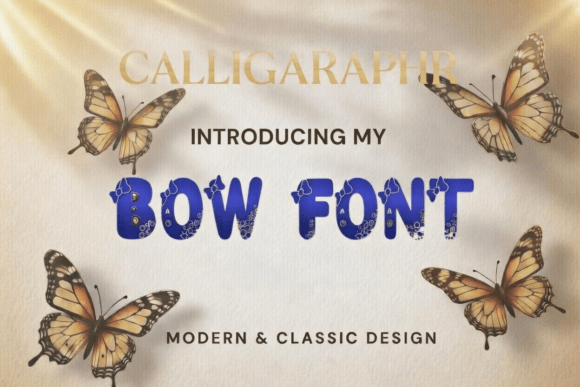
Adding a Touch of Whimsy to Your Creations
Remember the excitement of planning a child’s birthday party, carefully selecting the perfect decorations and invitations to match their unique personality? The joy of bringing their imagination to life is what drives many of us to create. For designers and crafters, this passion often translates into finding the perfect fonts to capture the essence of our ideas.
Enter Bow Font, a charming display font that is sure to delight both kids and kids-at-heart. This delightful typeface features thick, rounded letters adorned with a sweet little bow on the top corner, adding a touch of playfulness to any project. The bottom half of each letter is filled with a fun, decorative circular pattern, making it a perfect blend of modern and classic design elements.
With Bow Font, you’ll have the perfect tool to add a whimsical touch to your next creative project, whether it’s a custom invitation, a birthday card, or even a social media graphic. Its unique design makes it a valuable asset for designers, offering endless possibilities for creative expression.
Bow Font Key Features
- Unique Characteristics: Bow Font features a distinctive, hand-drawn design with flowing curves and elegant lines, making it perfect for creative and artistic projects.
Bow Font Review
When I first laid eyes on Bow Font, I was immediately drawn to its playful and whimsical vibe ✨. The intricate details and curvaceous lines give it a feminine touch that’s perfect for designs that need a little extra flair. I appreciate how versatile this font is – it works beautifully for everything from branding and packaging to editorial and social media graphics.
One of the standout features of Bow Font is its extensive character set ✨. With over 400 glyphs, you’ve got plenty of options for customizing your designs to fit your specific needs. I also appreciate the font’s OpenType features, which allow for advanced typographic effects and ligatures.
However, I do have a few concerns with Bow Font ⚠️. For one, the font can be a bit heavy-handed with its decorative flourishes, which can make text difficult to read in certain contexts. Additionally, the font’s high contrast between light and dark areas can sometimes result in a busy or overwhelming visual effect.
Rating: 3.5/5
- Playful and whimsical design
- Extensive character set (over 400 glyphs)
- OpenType features for advanced typographic effects
- High contrast between light and dark areas
- Decorative flourishes can be overwhelming in certain contexts
For best results, use the Bow Font in combination with bold or italic text to create visually appealing contrast.
Experiment with different font sizes and colors to enhance the design.
The Bow Font is ideal for creating playful and whimsical designs, such as:
Wedding invitations and decorations
Children’s party invitations and decorations
Gift tags and wrapping paper